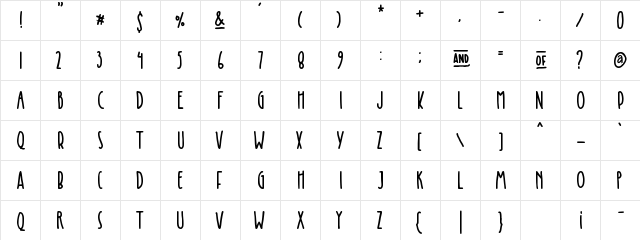
Kinglet Cute Regular Font Preview
Kinglet Cute Regular
Kinglet Cute Regular Font Details
| Designer | Malik Wisnu |
Design Context for Kinglet Cute Typeface
Kinglet Cute is a composed and adaptable typeface that performs quietly and consistently across a wide range of design contexts.